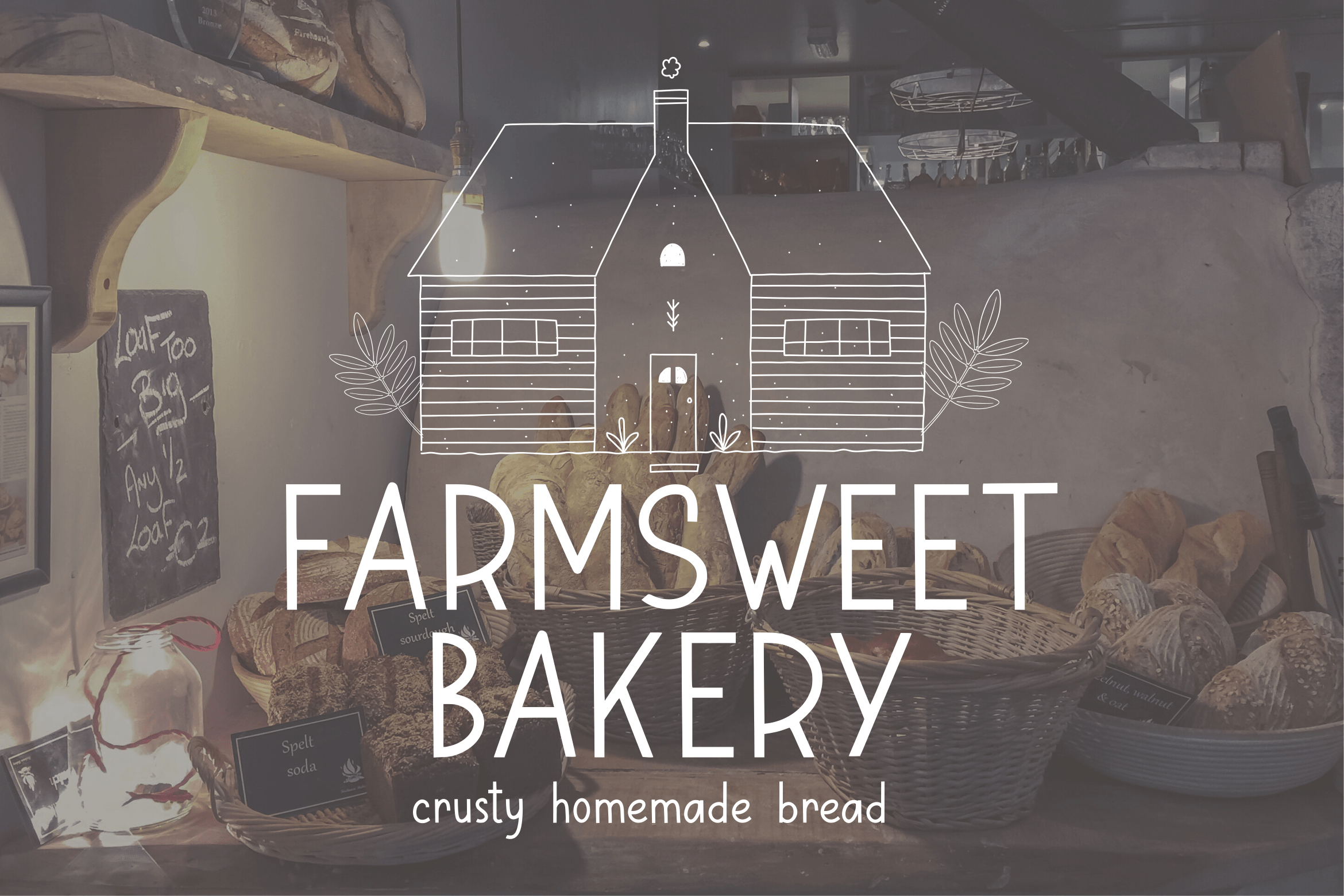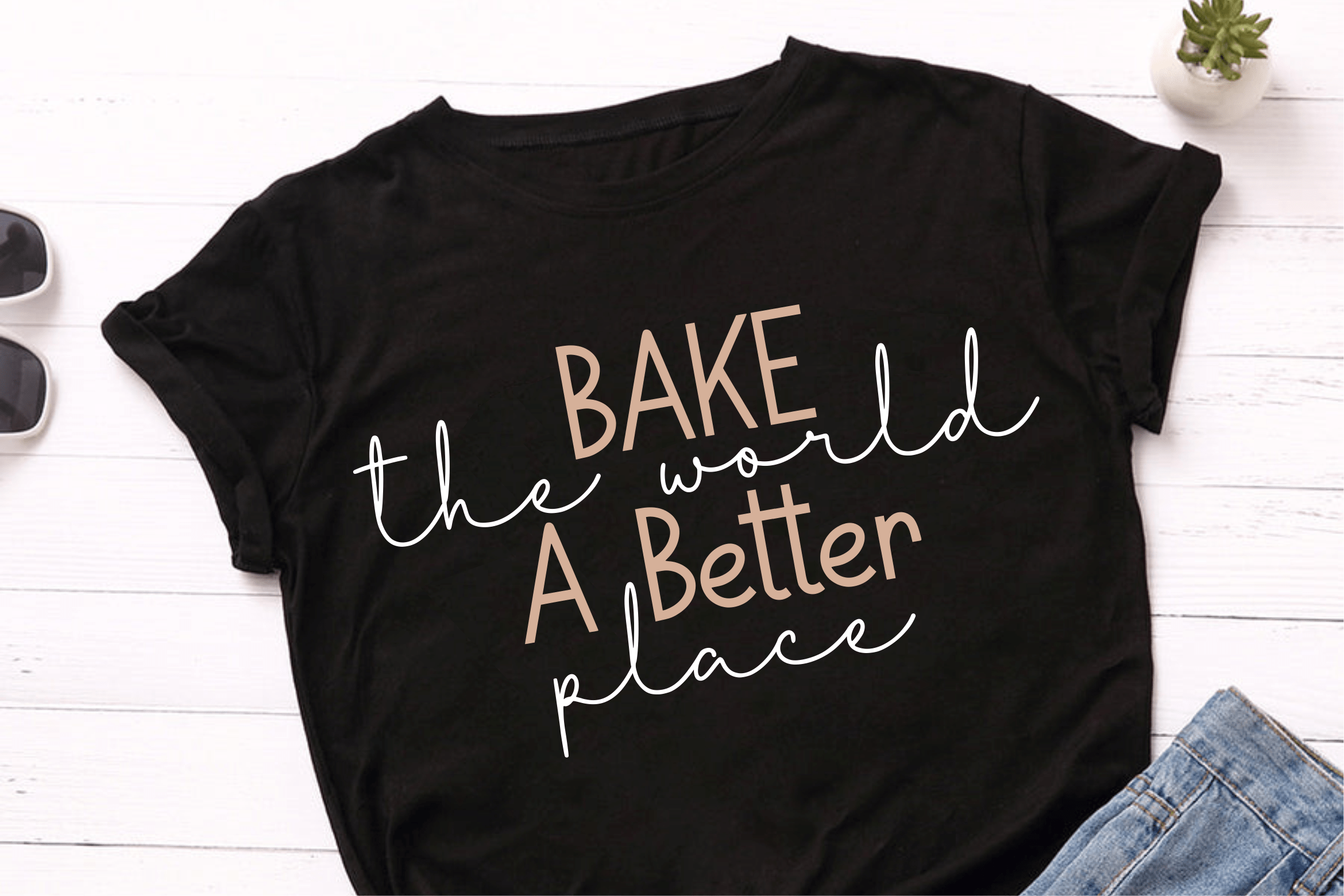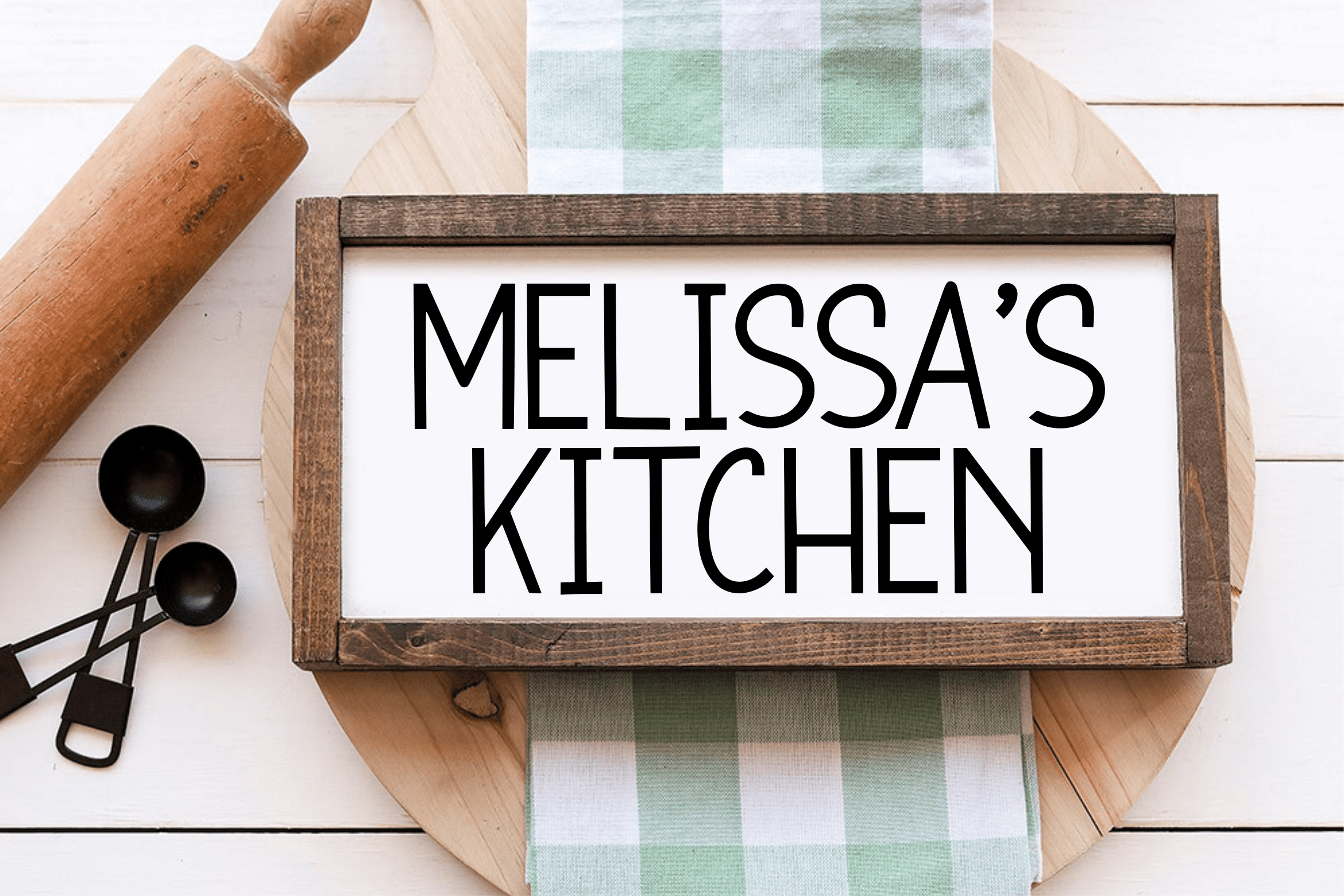
Magic Bread Display Font
This is a tall and skinny looking handwritten font. It is perfect for product packaging, branding project, magazine covers, social media, wedding, or just used to express words above the background.